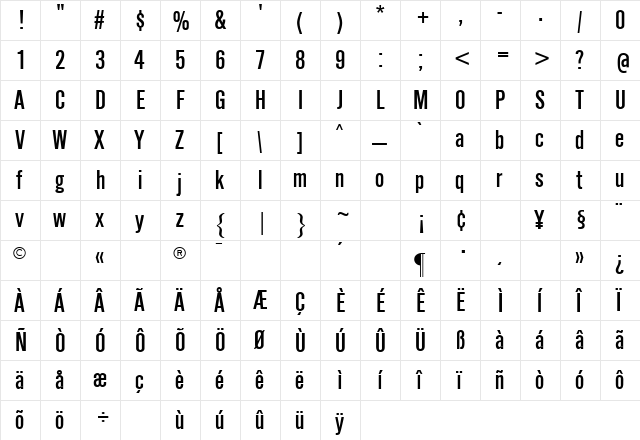
SimpleType Regular
Design Context for SimpleType Typeface
SimpleType offers clean, dependable letterforms without strong stylistic allegiance, making it a practical choice for designers who need flexibility.